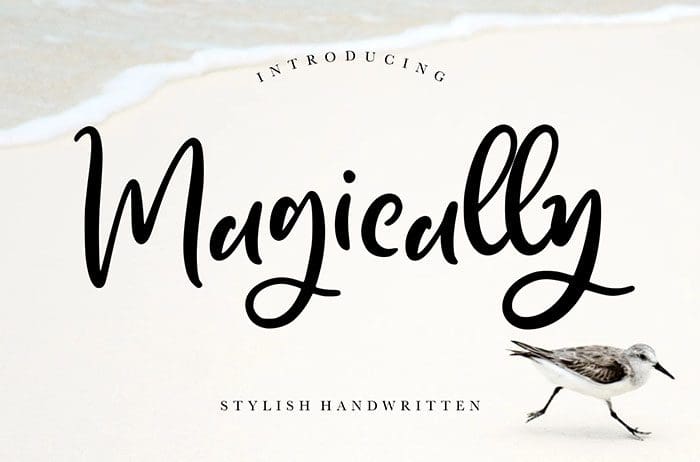
Magically Handwritten Font
Magically Handwritten Font with an elegant signature style. Perfect for logo, wedding designs, invitation, stationery, photography, and more. Thanks to Creatype Studio for sharing this font! Take a look at this portfolio for more of his stunning fonts.